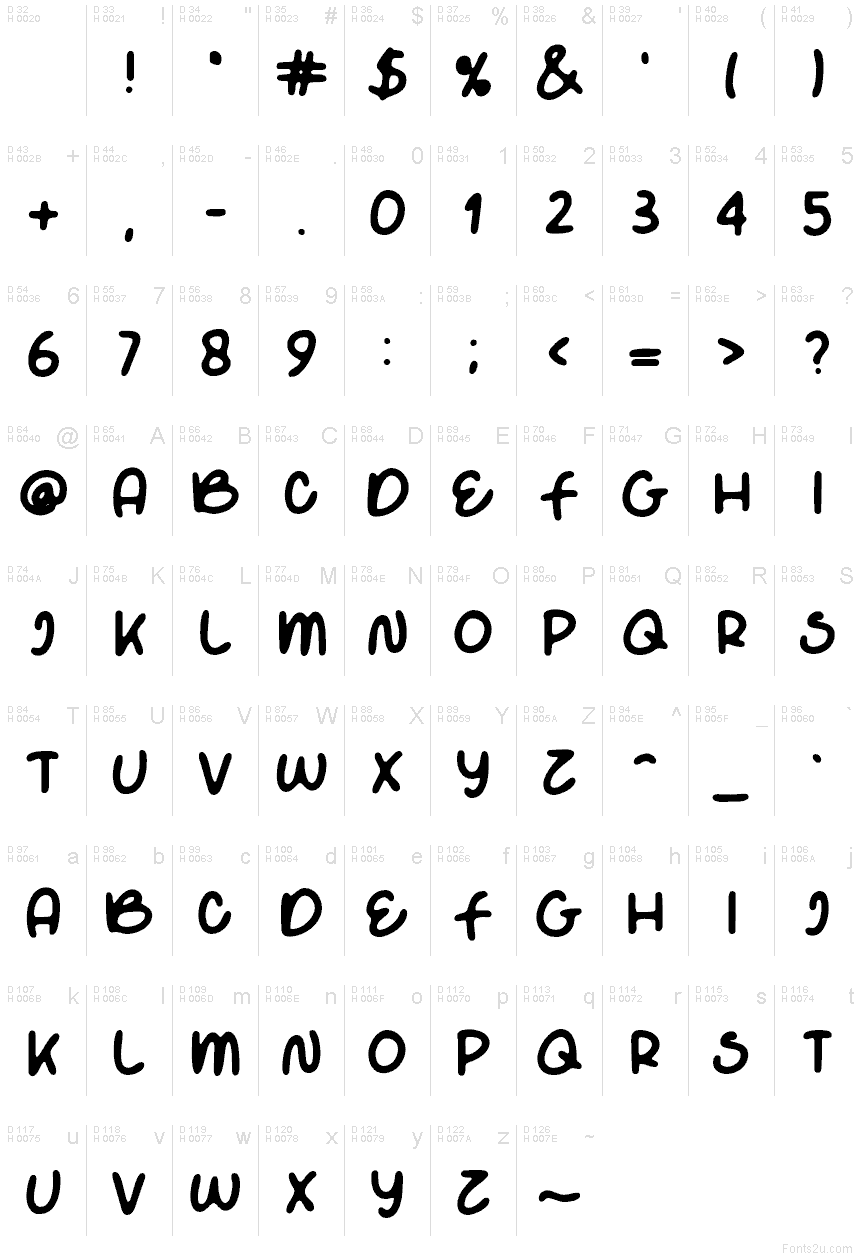
White Apple
White Apple font by Origin Type is a free handwritten font. Built for cheerful headlines, it leans into plush, rounded strokes and a gently bouncy rhythm that feels like a thick paint pen on glossy paper. The letters sit close with pillowy curves and roomy counters, giving you warm, high-impact words without sharp edges or fuss.
Using White Apple, your type pops on kids’ book covers, classroom posters, snack or bakery packaging, stickers, YouTube thumbnails, social banners, and party invites. This free font reads loud and friendly at large sizes and stays legible when scaled down. Try pairing it with a clean rounded sans for body copy, and tighten tracking a touch for punchy, compact titles.